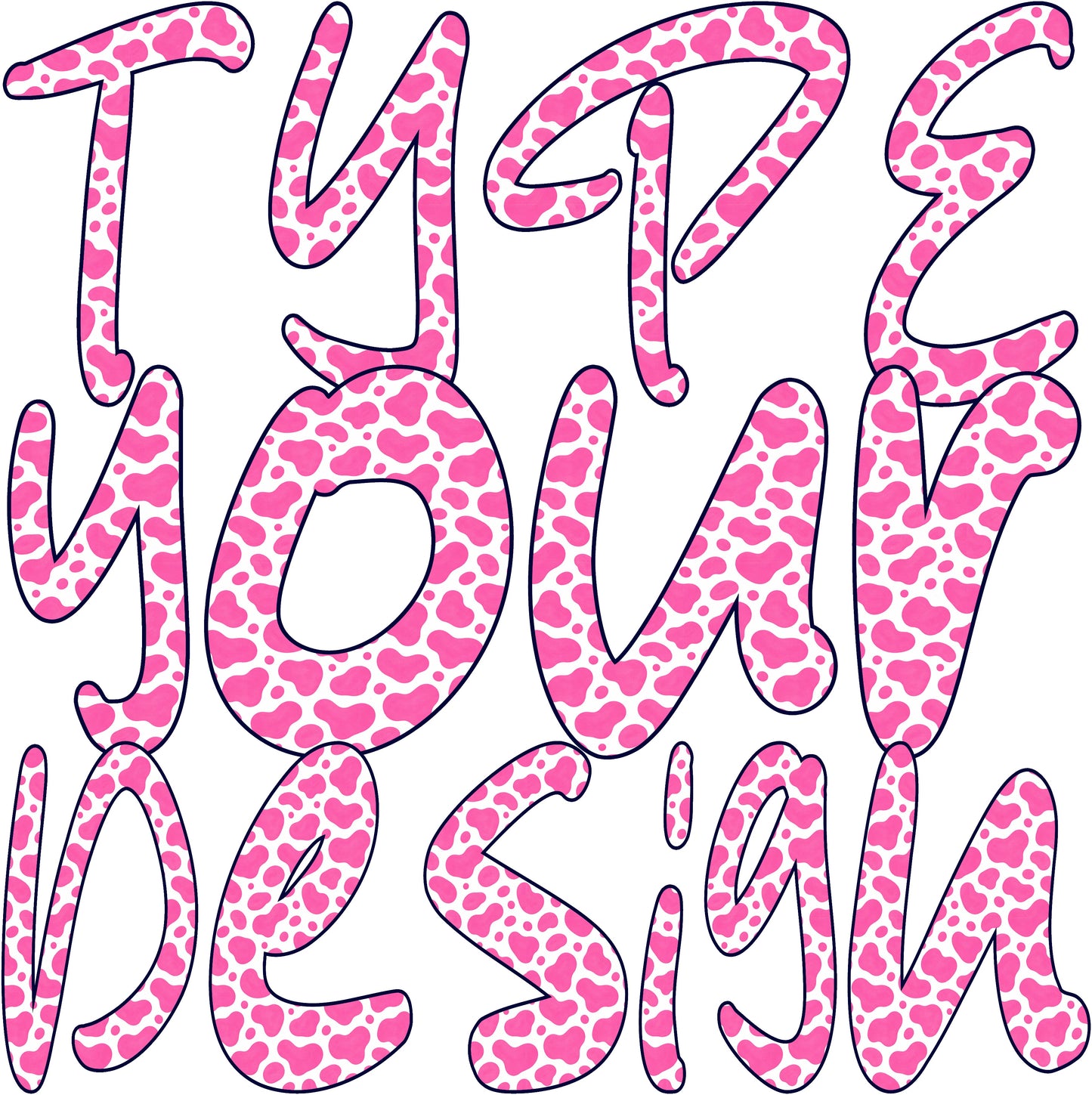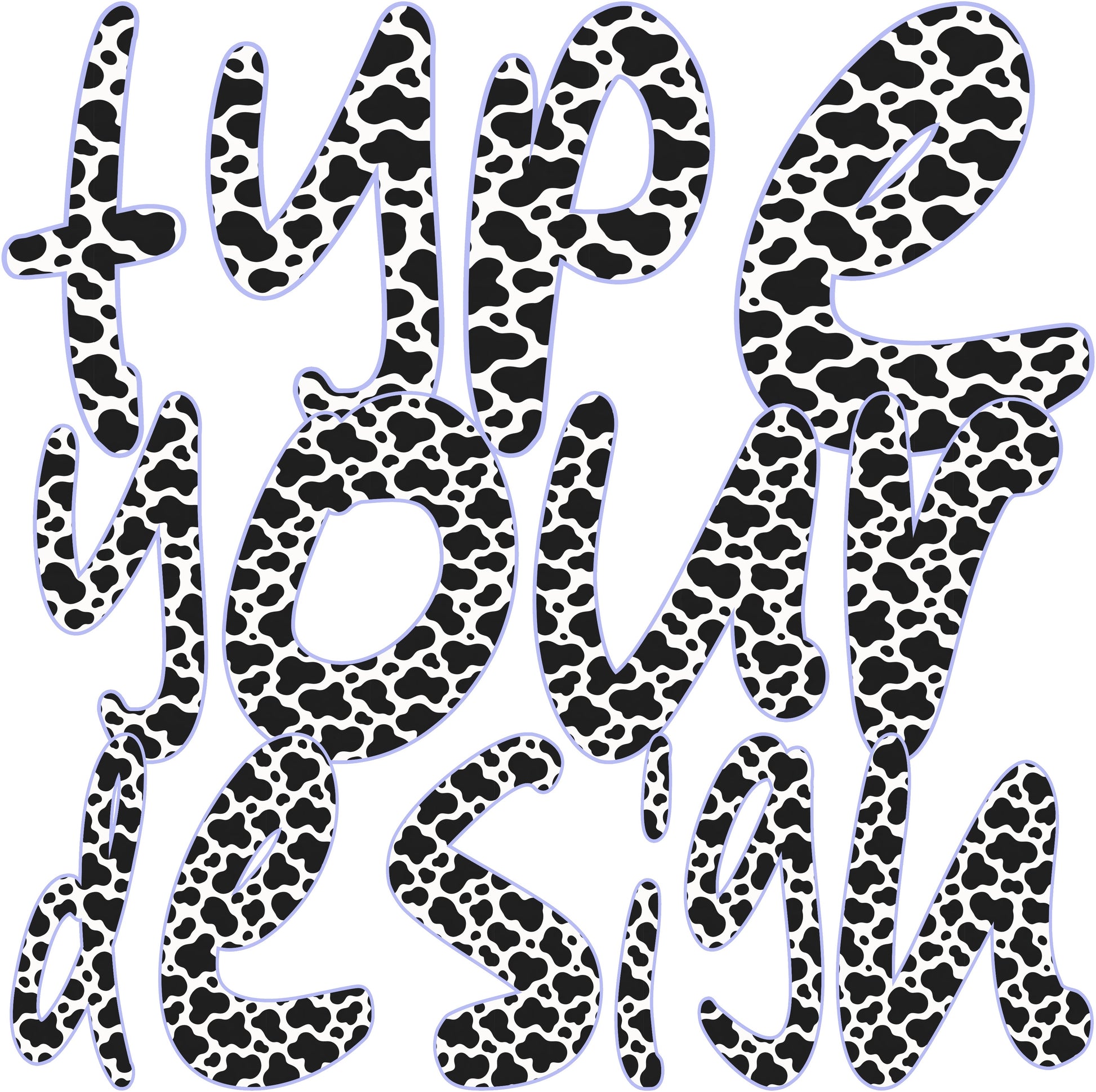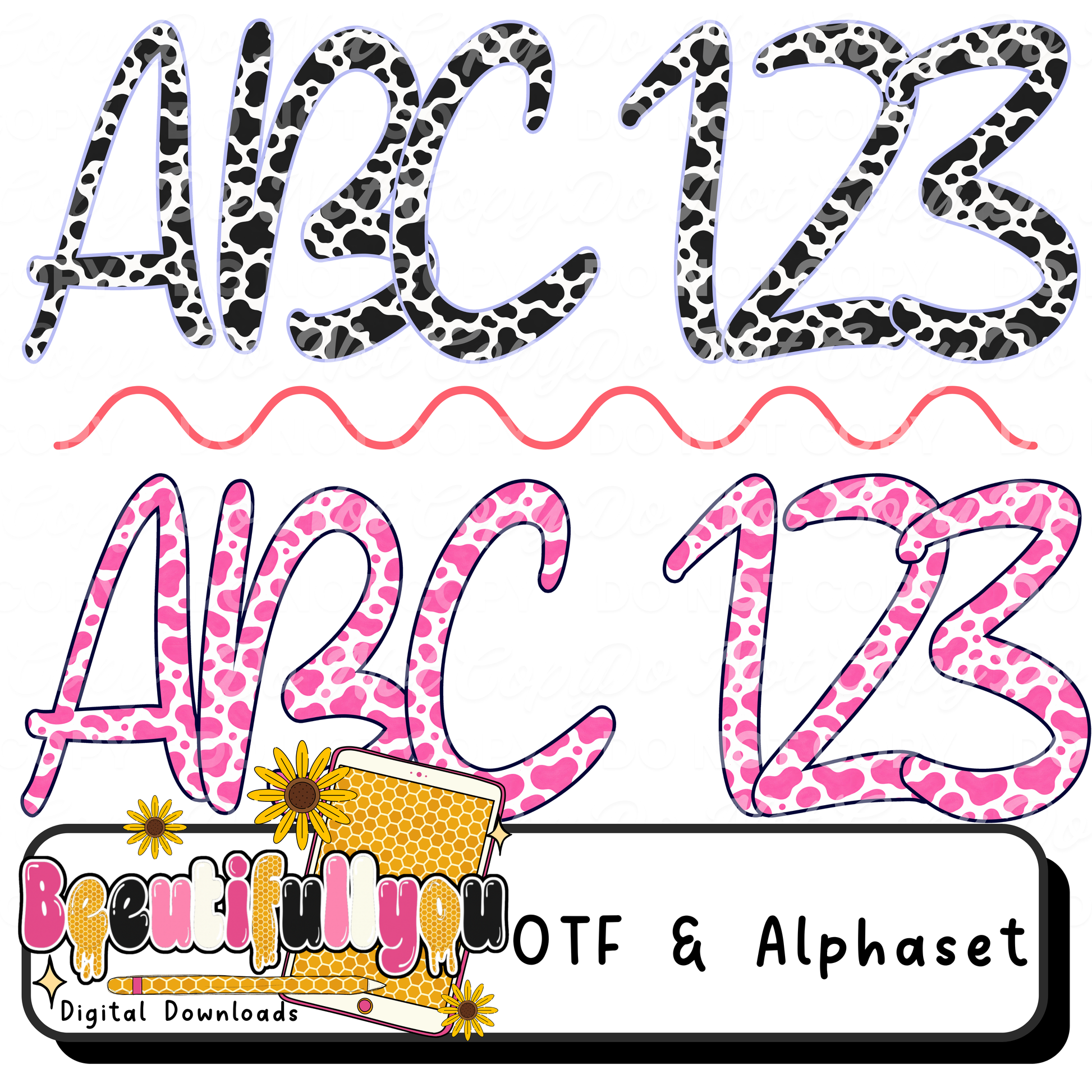
🐄💗 The perfect mix of western + girly aesthetic.
This Moo Font Duo includes TWO coordinating cow print alphabets — one classic black & white and one trendy pink — perfect for creating high-selling boutique-style designs.
Whether you’re designing for western babes, mama tees, or trendy kids apparel, this font set is made to stand out ✨
🐄 Design Style
✨ Classic black & white cow print
✨ Trendy pink cow print
✨ Smooth, playful lettering
✨ Boutique-ready aesthetic
• Colors/patterns are built into the letters